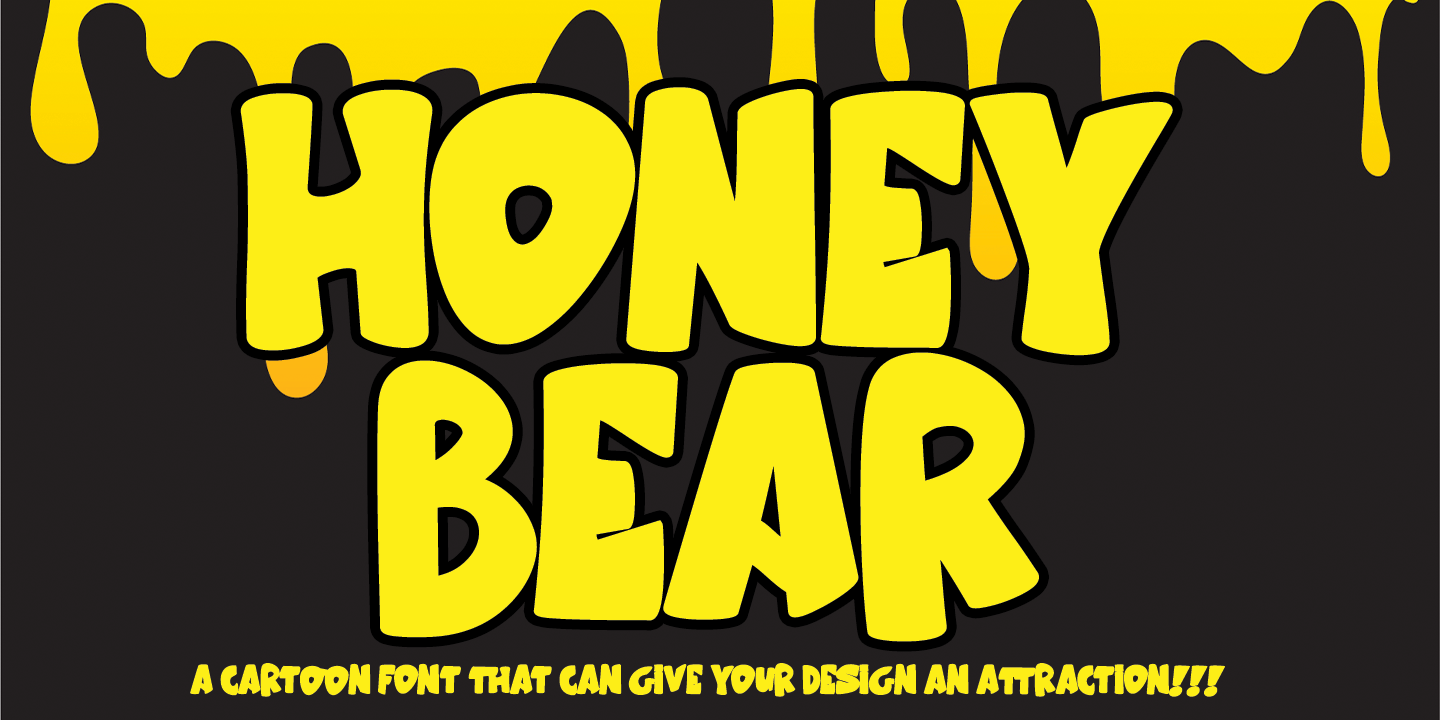
This sweet typeface excels in various cozy applications including honey product packaging, children's storybooks, teddy bear shop branding, organic bakery logos, woodland-themed invitations, comfort food restaurants, nature camp materials, and artisanal breakfast café menus. The Honey Bear Font radiates warmth and comfort with its cuddly letterforms that combine the golden sweetness of honey with the huggable charm of friendly forest bears.
What makes this font truly exciting is its irresistible blend of natural sweetness and comforting warmth, creating characters that feel like a warm hug dipped in golden honey. The lovingly crafted letters feature soft, rounded edges, bear paw-inspired curves, and sticky-sweet details that make every word feel deliciously cozy. Its distinctive personality combines woodland whimsy with artisanal quality, creating typography that appeals to both children and adults seeking authentic comfort.
The Honey Bear Font family includes forest-sweet variations: Light, Regular, Bold, Extra Bold styles, plus decorative alternates with honeycomb patterns and bear motifs. Each family member maintains the signature sweet character while providing flexibility for creating designs that range from gently sweet to boldly honeyed.